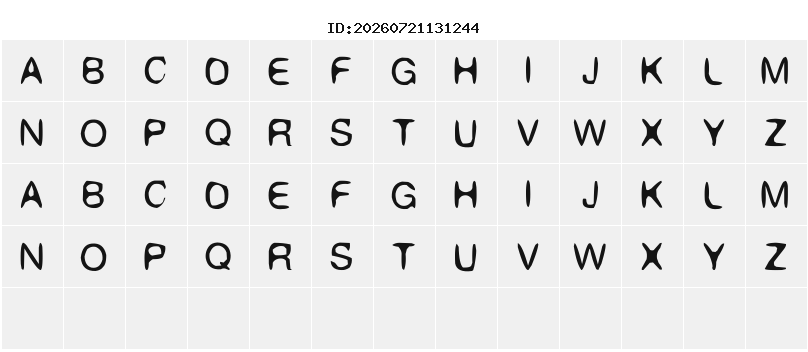
About Fifty.ttf
Fifty.ttf is a modern, elegant sans-serif font designed for ultimate readability and visual harmony. Perfect for branding, headlines, web design, and print materials.